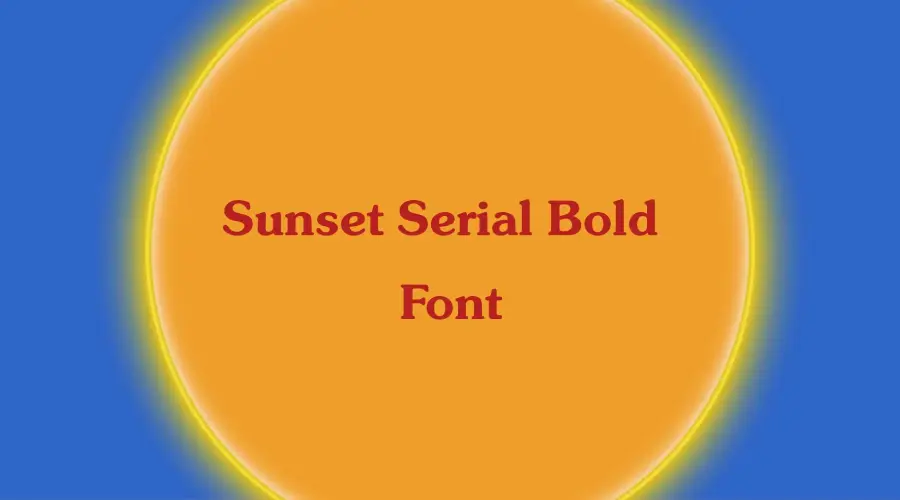
Sunset Serial Bold Font
Sunset Serial Bold font was first introduced in 1996. It is part of the Sunset Serial font family, which consists of 14 styles.
It was published by SoftMaker. The font family includes regular, italic, bold, bold italic, light, light italic, and black weights.
Sunset Serial Bold is a versatile font that can be used for a variety of purposes, such as headlines, body text, and branding. It is also a good choice for use on the web, as it is webfont compatible.
Characteristics:
• Versatile and suitable for diverse designs
• Classic and elegant appearance with a slight slant and curved terminals
• Large x-height and small descender for better readability
Sunset Serial Bold is a bold and striking typeface ideal for making a statement in design projects. Its versatility, readability, and professional appearance make it a popular choice. With its long history and diverse family, Sunset Serial Bold offers a timeless option for designers.